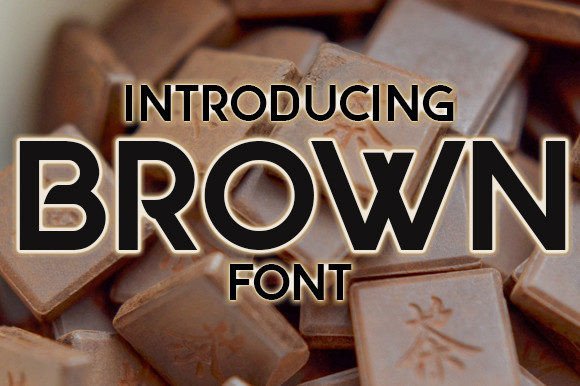
Discover the Timeless Elegance of Brown Font
You’ve spent hours pouring over your design, tweaking every detail, and finally, it’s time to choose the perfect font. And then, it hits you – the moment of clarity when everything falls into place. The words flow effortlessly, and the design comes alive. For many designers, this is the moment when the Brown Font becomes the perfect companion to their creative vision.
Brown Font is an elegant sans serif typeface designed to elevate your designs to the next level. Whether you’re creating a poster, flyer, banner, or social media post, this font is sure to make a lasting impression. Its clean lines and sophisticated feel make it the perfect choice for designers who want to convey a sense of sophistication and style.
Brown Font Key Features
- Font Family: Brown Font is a sans-serif typeface.
- Unique Characteristics: Brown Font features a unique, earthy tone that evokes a sense of warmth and comfort, making it ideal for use in designs that require a natural and inviting feel.
Brown Font Review
As a designer, I’ve had the chance to experiment with the Brown Font, and I must say it’s been an interesting experience. ✨ One of the things that works well is its warm and inviting aesthetic. The font’s earthy tone instantly evokes feelings of comfort and reliability, making it perfect for designs that require a cozy touch.
Another advantage of the Brown Font is its versatility. It can be used in a variety of contexts, from branding to editorial content, and still manage to convey a sense of approachability. ✨ Additionally, the font’s legibility is top-notch, ensuring that even the most complex text is easy to read.
- ⚠️ Limited to a single weight, which can make it difficult to achieve a consistent look across different font sizes.
- ⚠️ May not be the best choice for designs that require a bold or dramatic effect.
- ⚠️ Not ideal for digital interfaces, as the font’s warm tone can be overwhelming in high-contrast environments.
Overall, the Brown Font is a solid choice for designers who want to add a touch of warmth to their projects. While it has its limitations, it’s a versatile and highly legible font that’s sure to please.
Brown Font: A Practical Application Guide
Getting the Most Out of Brown Font
Use a brown font to add warmth and coziness to your designs. Pair it with earthy colors and natural textures for a rustic look.
Brown font is commonly used in:
- Outdoor and adventure marketing
- Rustic and vintage designs
Alternatives to “Brown Font” for Designers
Fontin is a serif font with a warm, earthy feel. It’s ideal for use in body text where a classic, traditional look is desired. Fontin is similar to Brown Font in its earthy tone, but it has a more refined and sophisticated feel. It’s a great choice for designers who want to add a touch of elegance to their designs.
Playfair Display is a luxurious, high-end serif font with a classic feel. It’s perfect for use in headlines, titles, and other prominent text elements where a sense of sophistication is desired. While Playfair Display has a similar classic feel to Brown Font, it’s more ornate and decorative, making it a great choice for designers who want to add a touch of luxury to their designs.
Merriweather is a classic serif font with a traditional feel. It’s ideal for use in body text where a clean, readable look is desired. Merriweather is similar to Brown Font in its classic feel, but it’s more straightforward and less ornate, making it a great choice for designers who want a simple, easy-to-read font.
Cambria
Cambria is a serif font with a modern, elegant feel. It’s perfect for use in body text where a clean, sophisticated look is desired. Cambria is similar to Brown Font in its modern feel, but it’s more refined and polished, making it a great choice for designers who want to add a touch of sophistication to their designs.